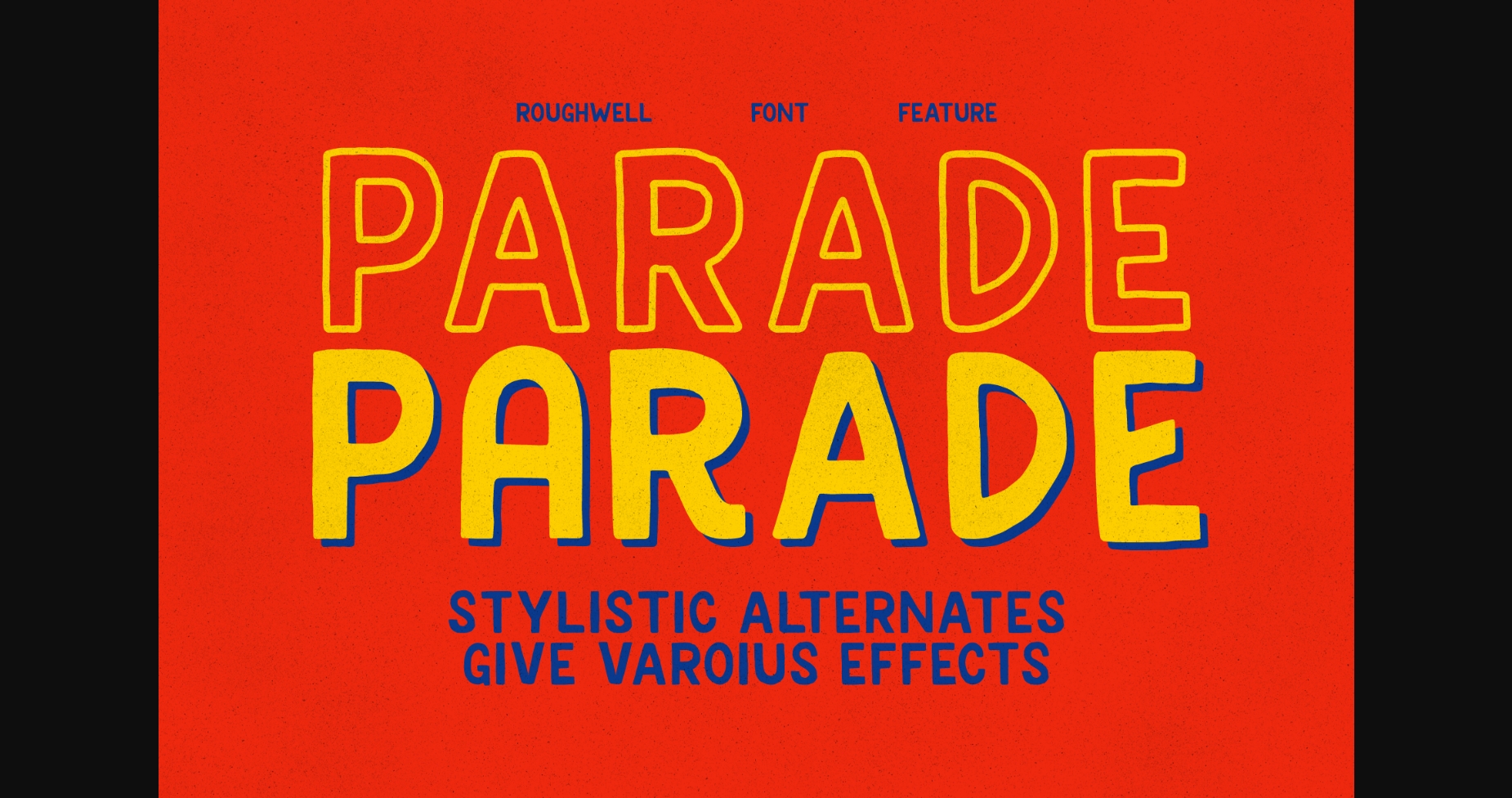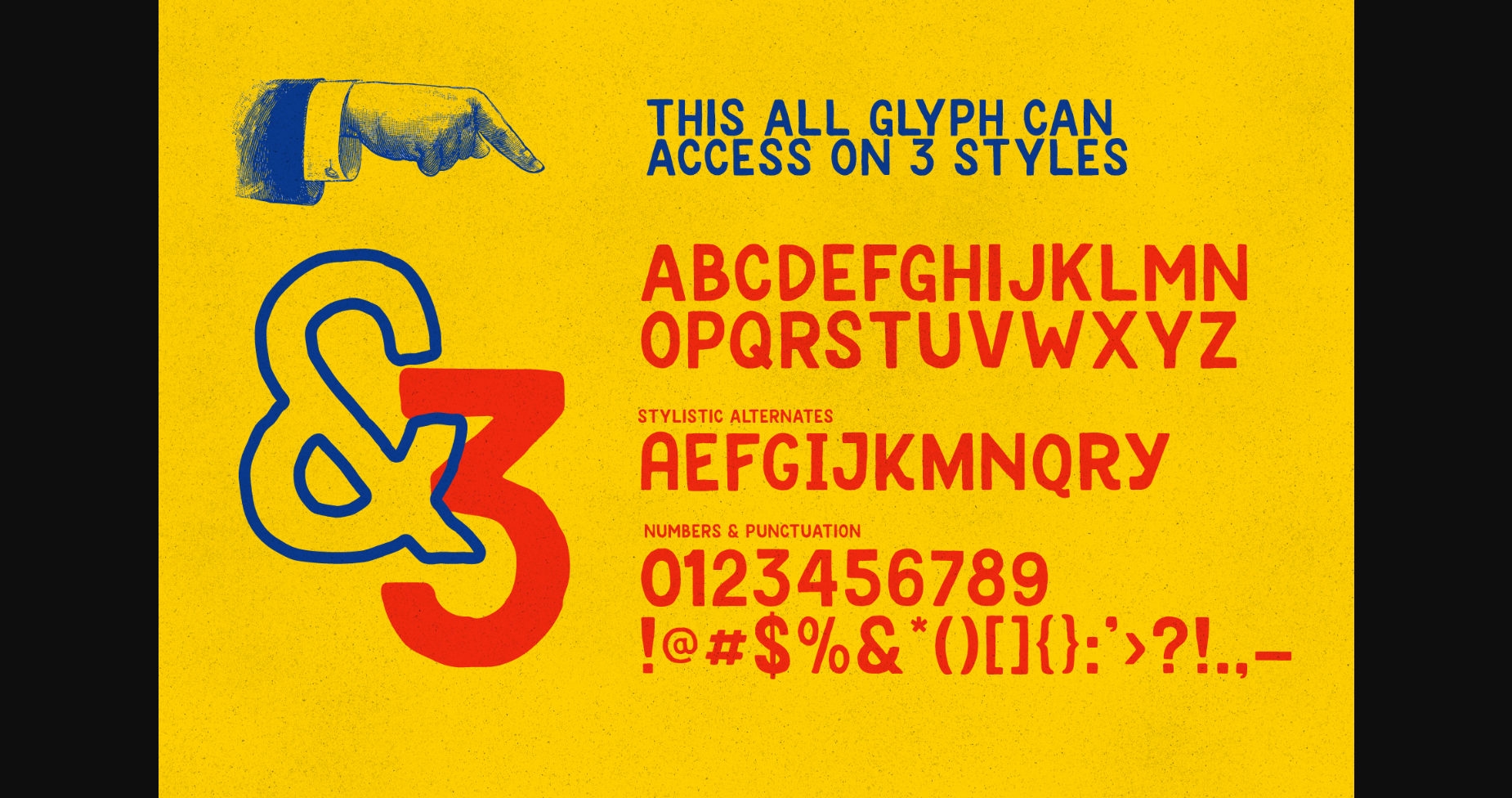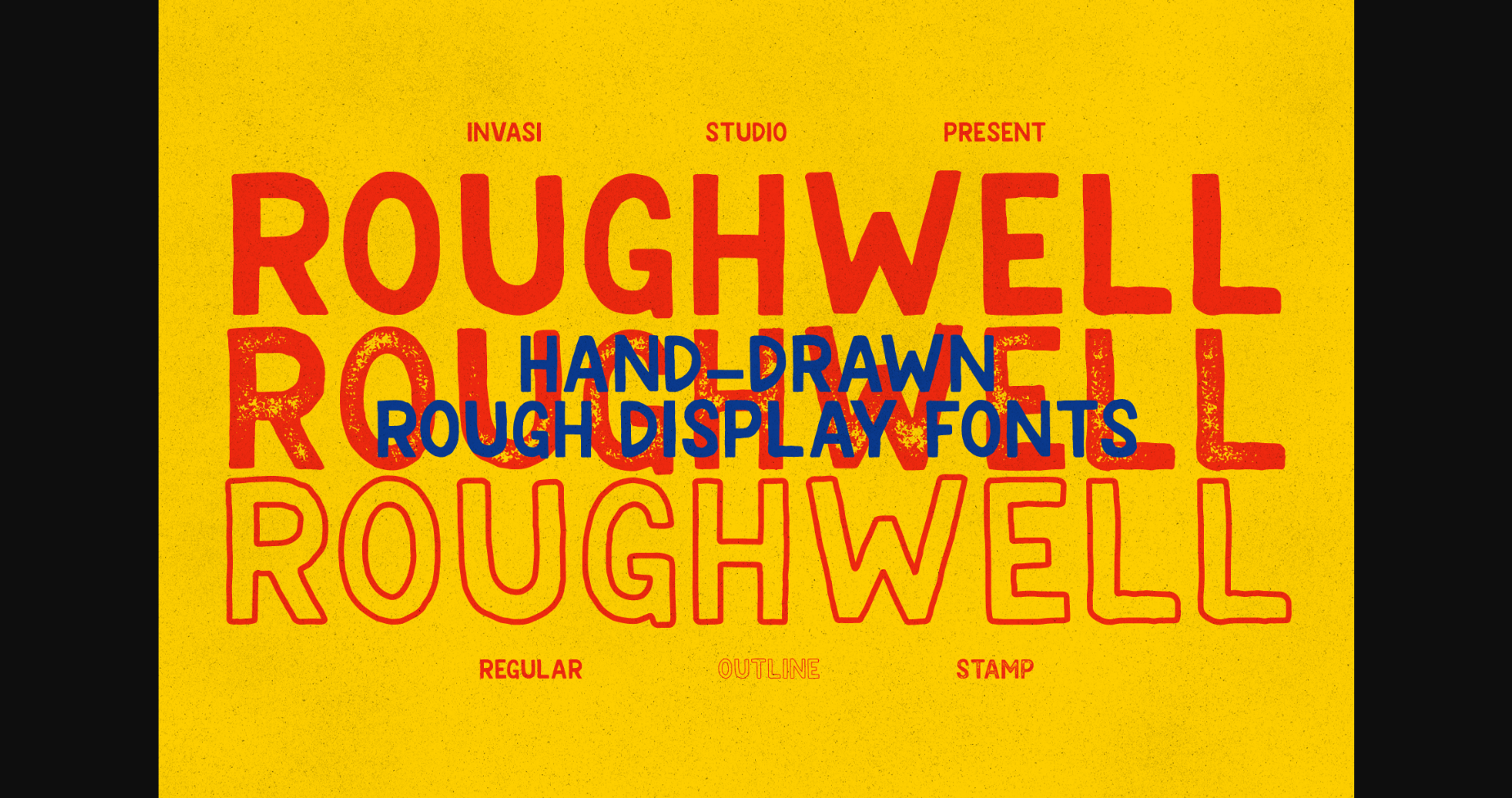
About Roughwell Family Font
Roughwell Family is a rough hand-drawn sans serif font with a retro stamp character. The imperfections keep it casual but still legible. It can be easily matched to an incredibly wide range of projects, so give it a try and see how it boosts your creative ideas!